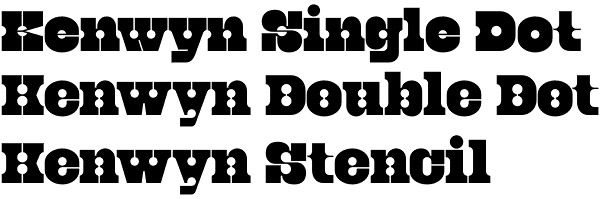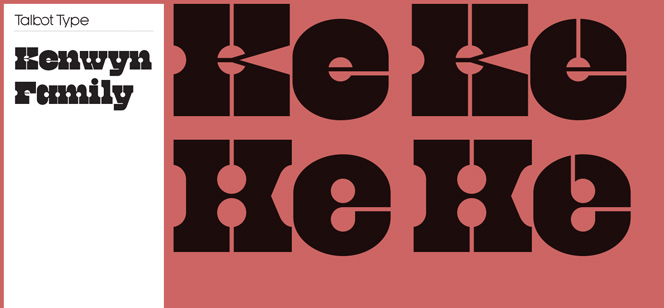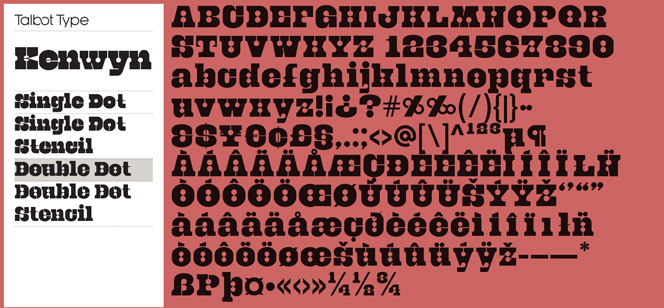
Kenwyn font
Kenwyn font by Adrian Talbot (Talbot Type foundry) is a fat, geometric slab-serif display font in Egyptian style. It features two variations – Single Dot and Double Dot with their Stencil option and corresponding Oblique styles forming a total of eight fonts. The Kenwyn font family two variations share the same principle structure, but as a result look quite different from each other. Essentially a blend of circles and squares, Single Dot features a circular counter at the centre of each character, while Double Dot uses a lower and upper circle.